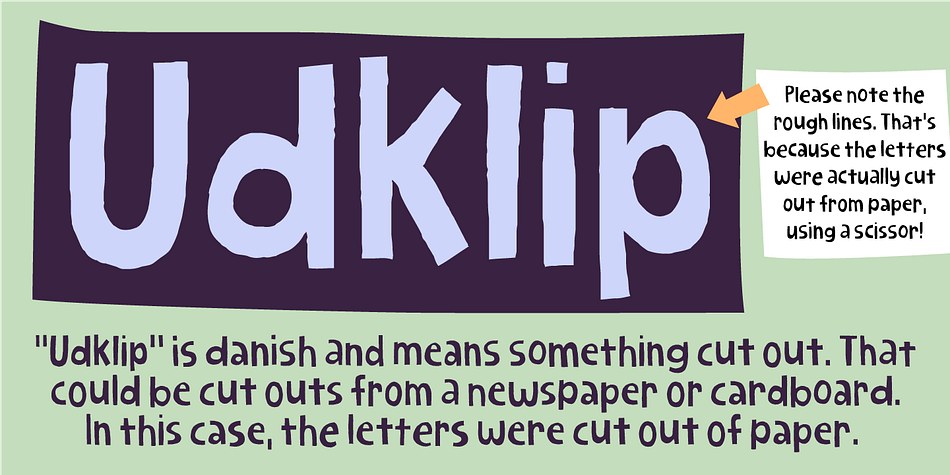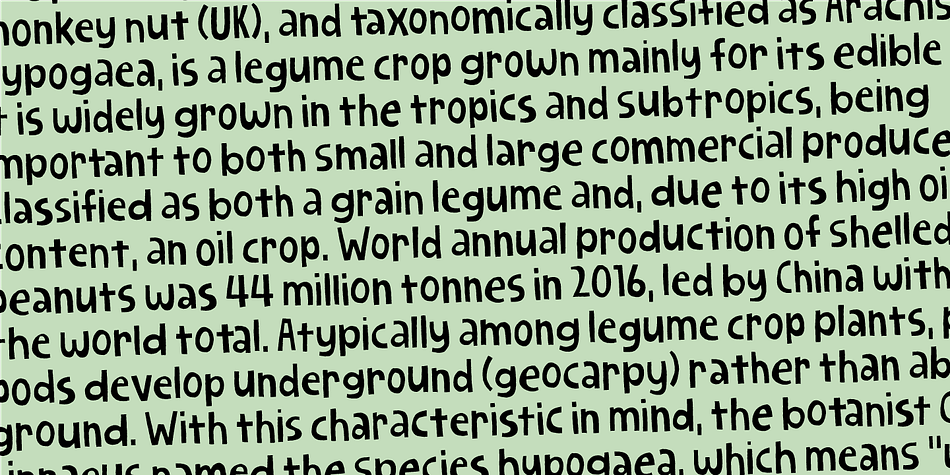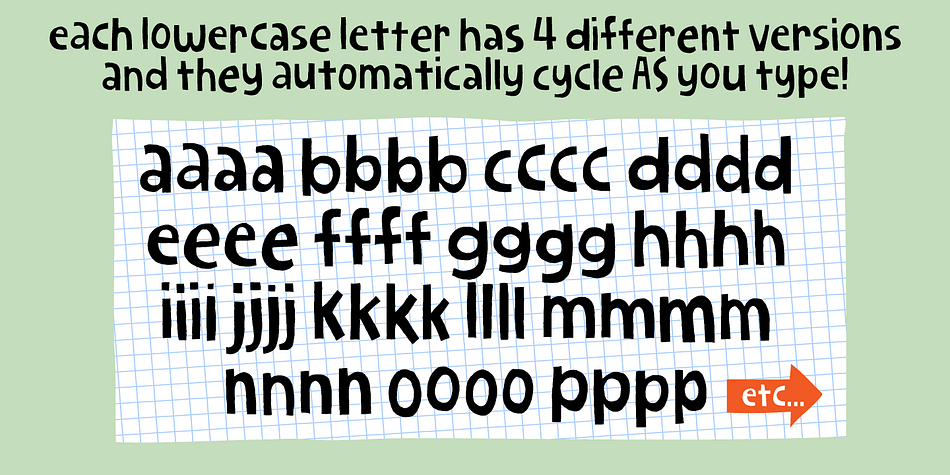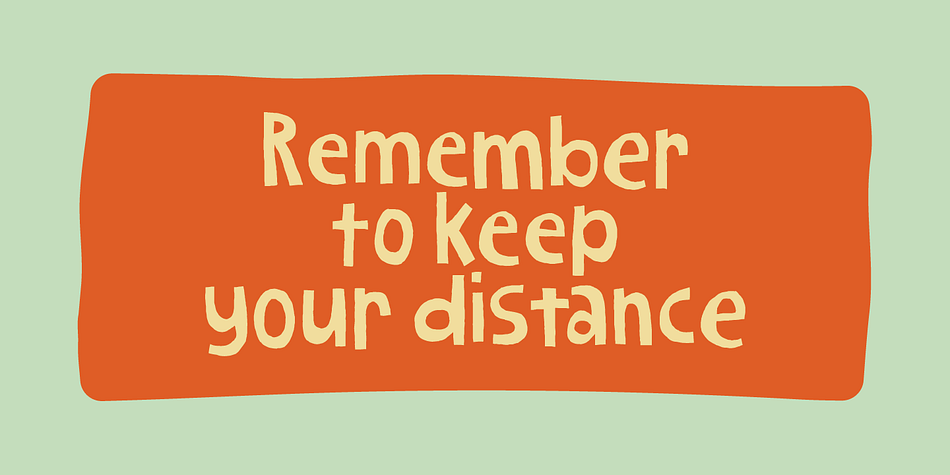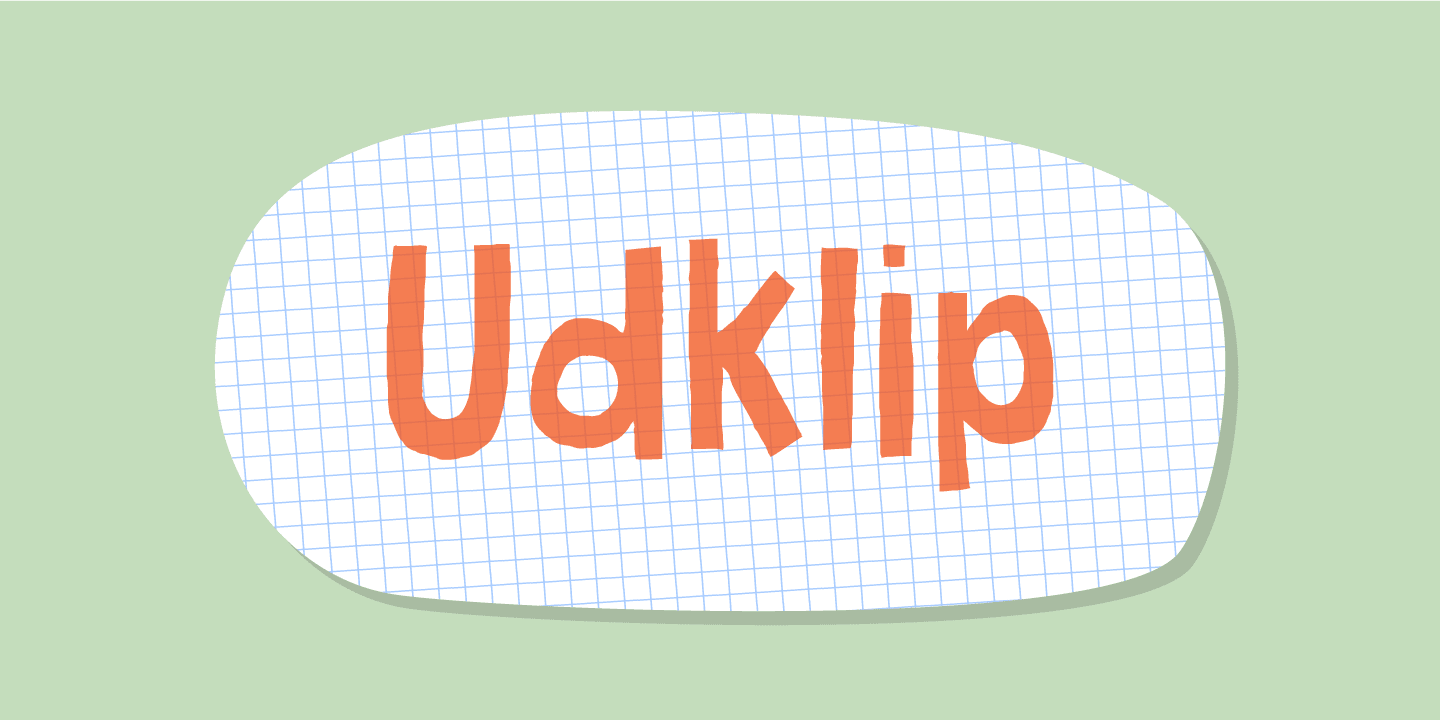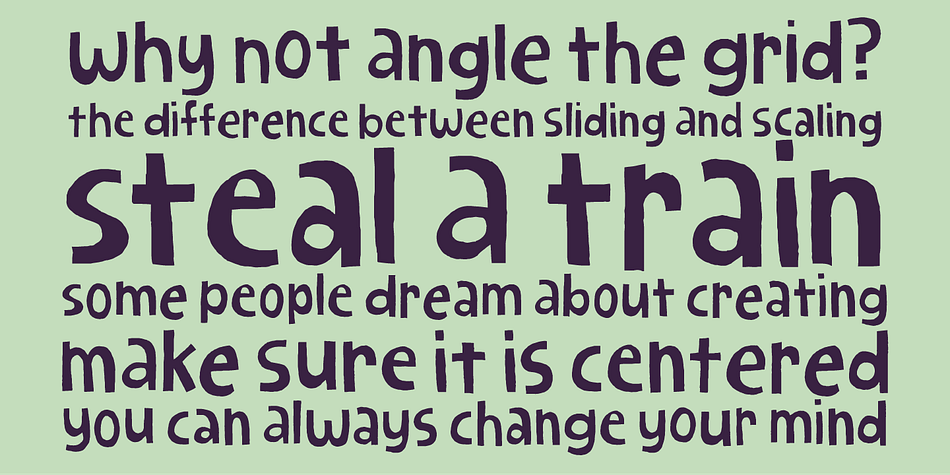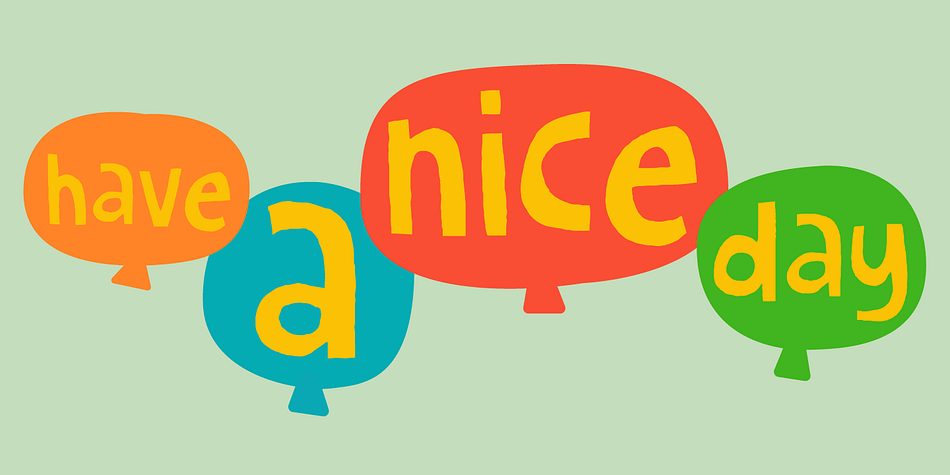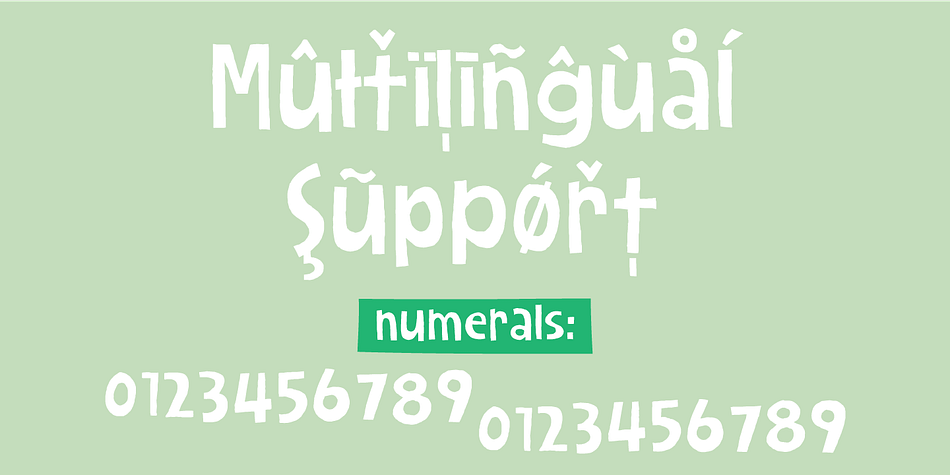
Designed by Jakob Fischer, Udklip is a hand display and hand drawn font family. This typeface has two styles and was published by Bogstav.
You’ve probably looked at several cut out fonts before, and yes…Udklip is also a cut out font - but wait! It’s more than that!!!
This font features 4 different versions of each lowercase letter! And they automatically cycle as you type - leaving your text more random and natural. Which is a very good thing when working with handmade fonts, especially fonts that imitate cut out letters!
The letters are bouncy and the letters vary a lot, but not too much! Though begin bouncy and irregular, Udklip gives a super legible feeling - perfect for something that needs a handcrafted look!